Discover a curated collection of pretty and elegant fonts designed to elevate your creative projects. From fashionable and decorative typefaces to craft-inspired and stylish scripts, these fonts bring personality, sophistication, and flair to branding, design, and personal projects. Whether you're crafting logos, social media visuals, or invitations, this set of typefaces combines beauty with versatility to make every design stand out.
Narque Holden Gold Font
Narque Holden Gold is a stylish font duo combining a refined serif and elegant script, perfect for luxury logos, titles, fashion branding, and premium design projects.
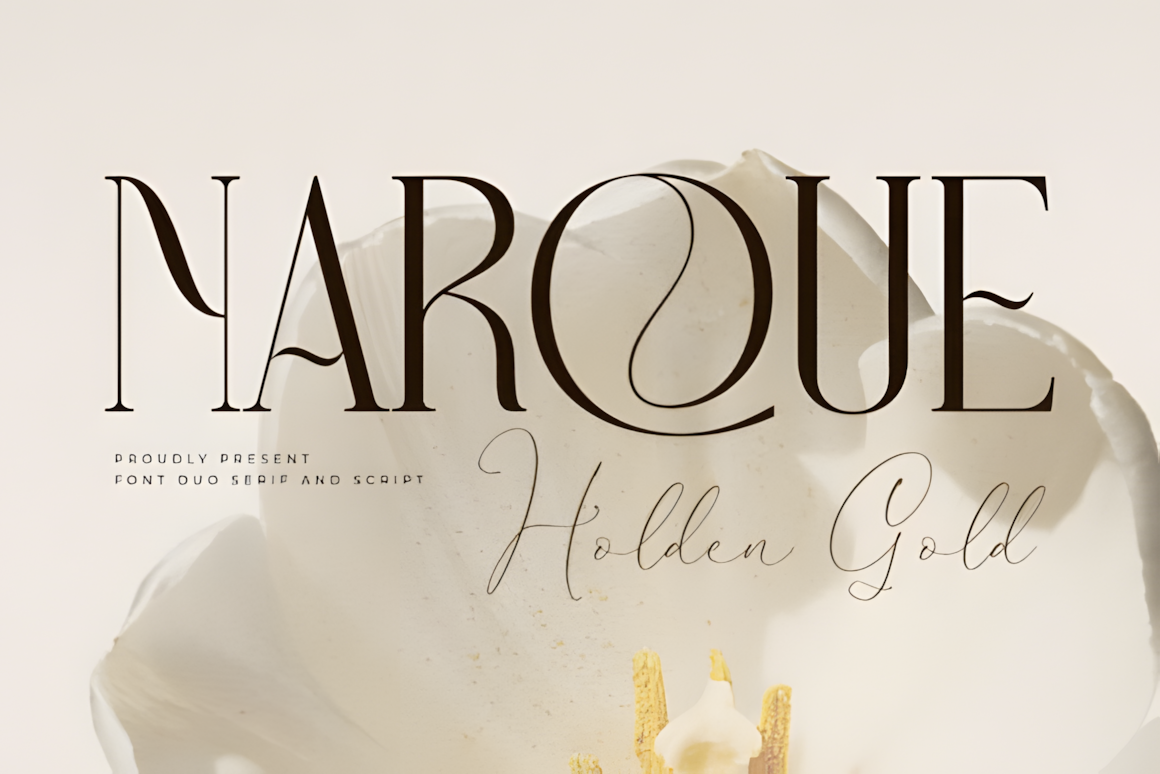
Sifty Font
Sifty is a modern serif typeface with tightly spaced, retro-inspired serifs. With 7 weights and unique ligatures, it works perfectly for headlines, logos, UI design, magazines, and other text-based projects.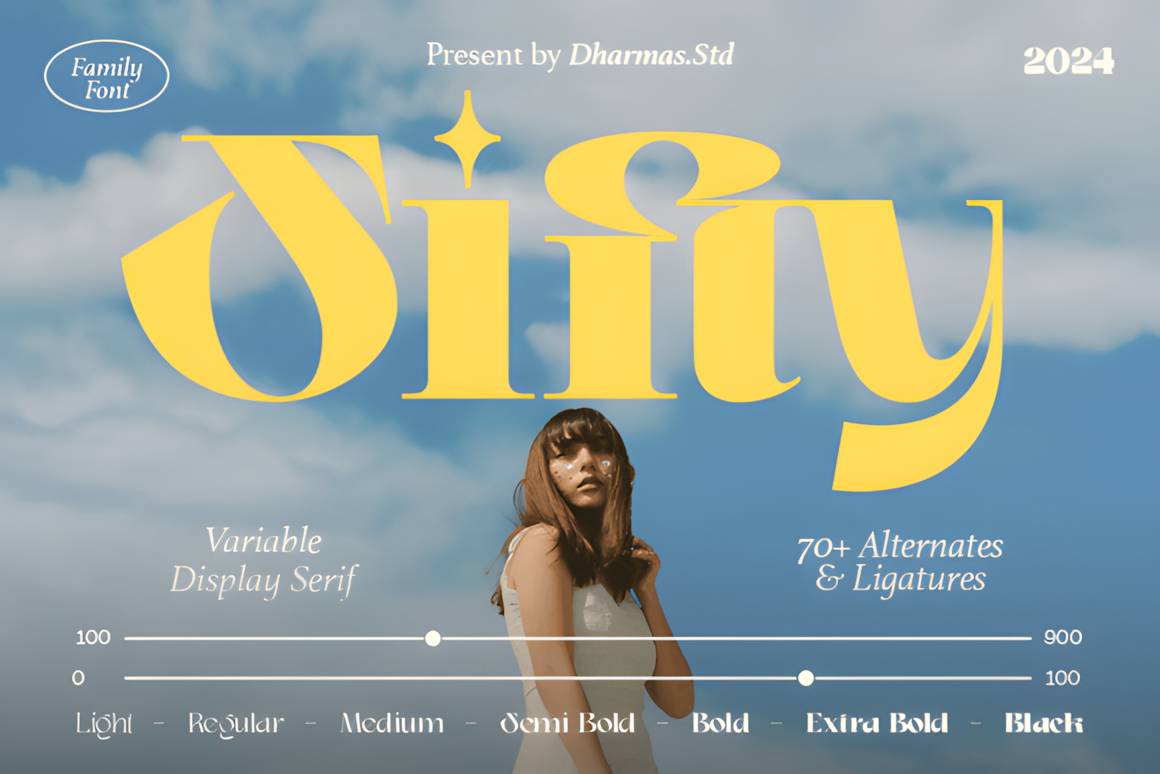
Megivia Font
Megivia is an elegant calligraphy serif typeface blending timeless grace with modern refinement. Featuring multiple styles and carefully crafted curves and alternates, it’s perfect for romantic, polished, and sophisticated designs.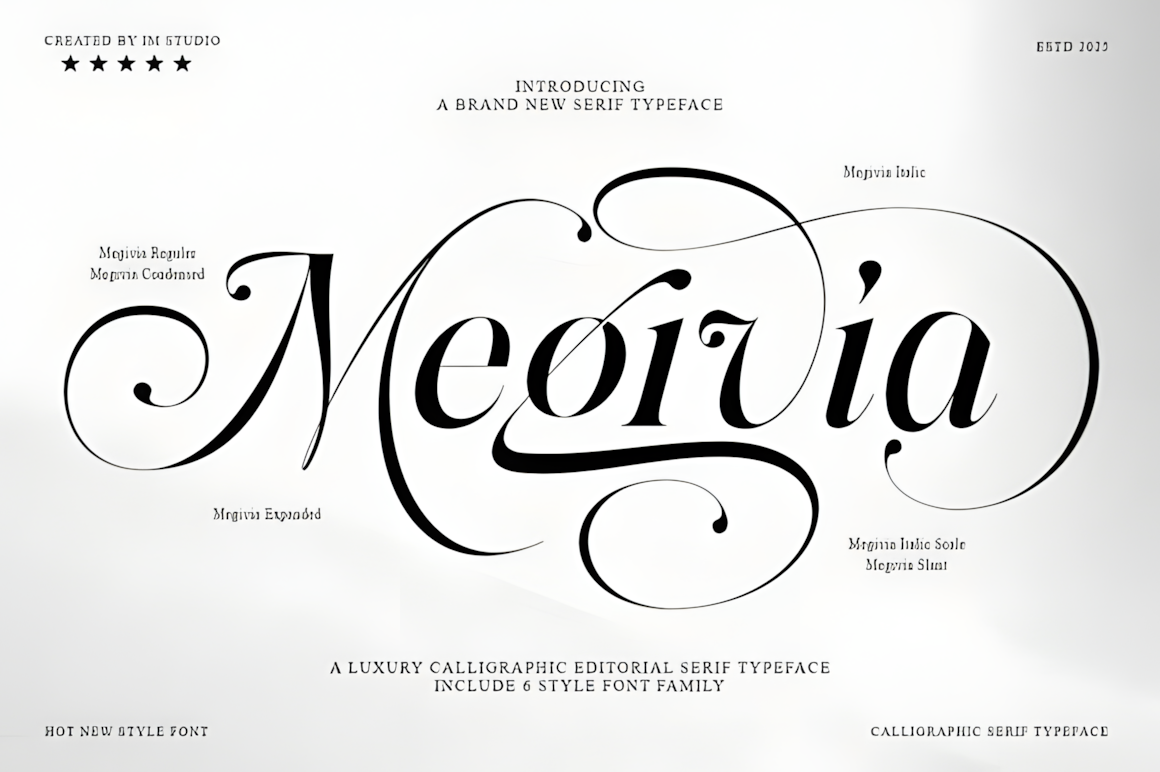
Lorine Font
Lorine is a classic serif display typeface combining timeless elegance with a modern touch. Its graceful proportions, refined serifs, and balanced contrast create a sophisticated yet approachable visual presence.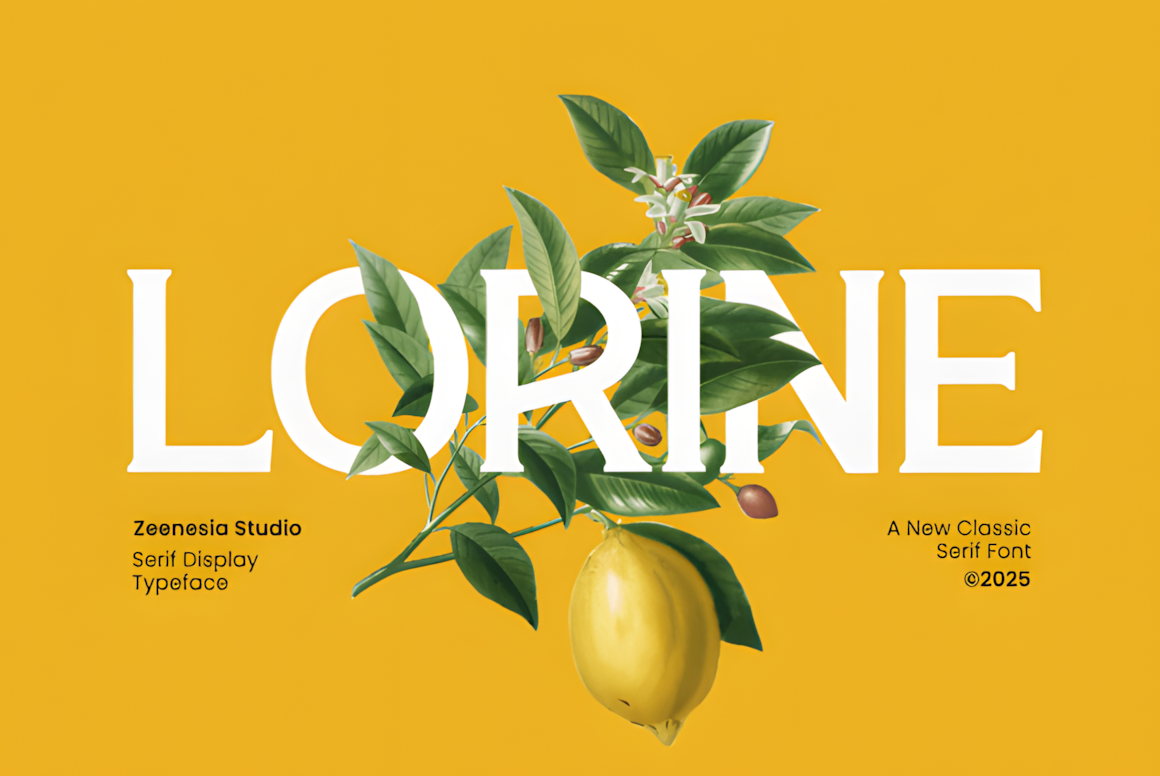
Romla Signature Font
Romla Signature is an elegant font duo combining serif and script styles. PUA encoded for easy access to all glyphs and swashes, it’s perfect for creating stylish, eye-catching designs.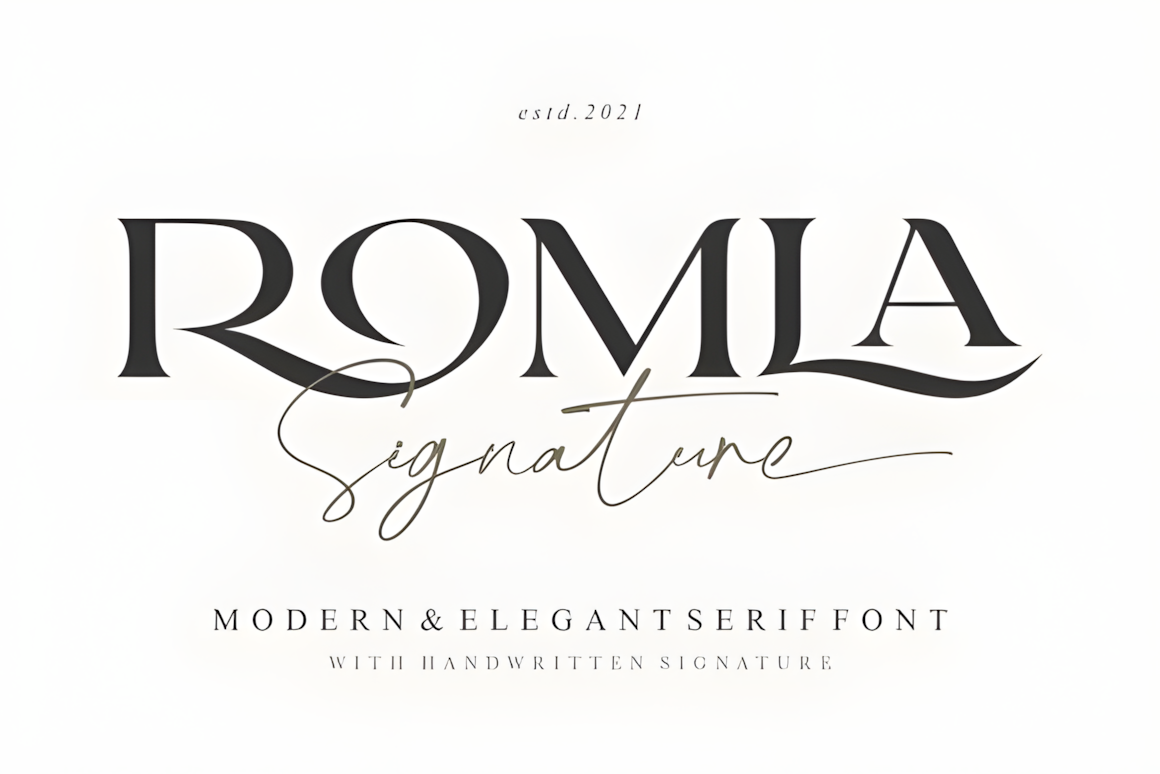
Zamora Font
Zamora is a modern, playful typeface with a mix of regular and stylized letters. Its precise curves and elegant design make it ideal for cartoons, branding, logos, greeting cards, packaging, and fun, eye-catching projects.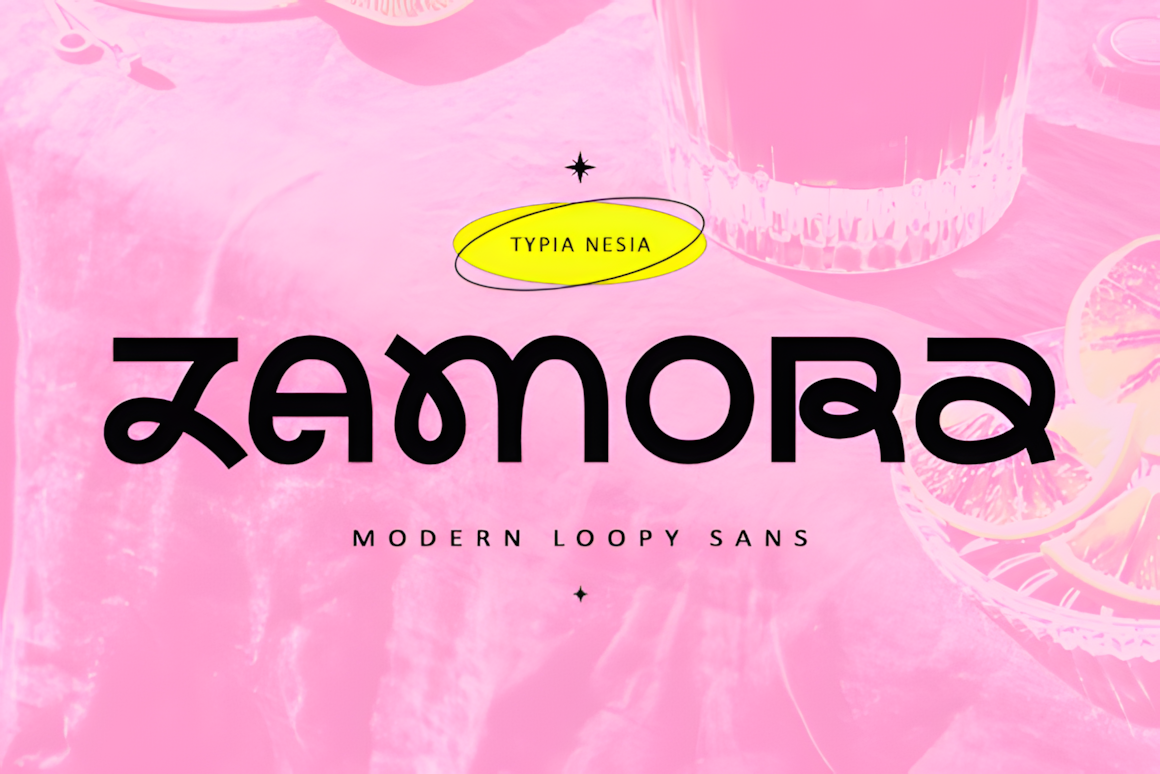
Lush Refinement Duo Font
Lush Refinement is an elegant font duo pairing a high-contrast serif with a flowing, romantic script. Perfect for weddings, luxury branding, and premium editorials, it combines classic sophistication with a bespoke, hand-flourished touch.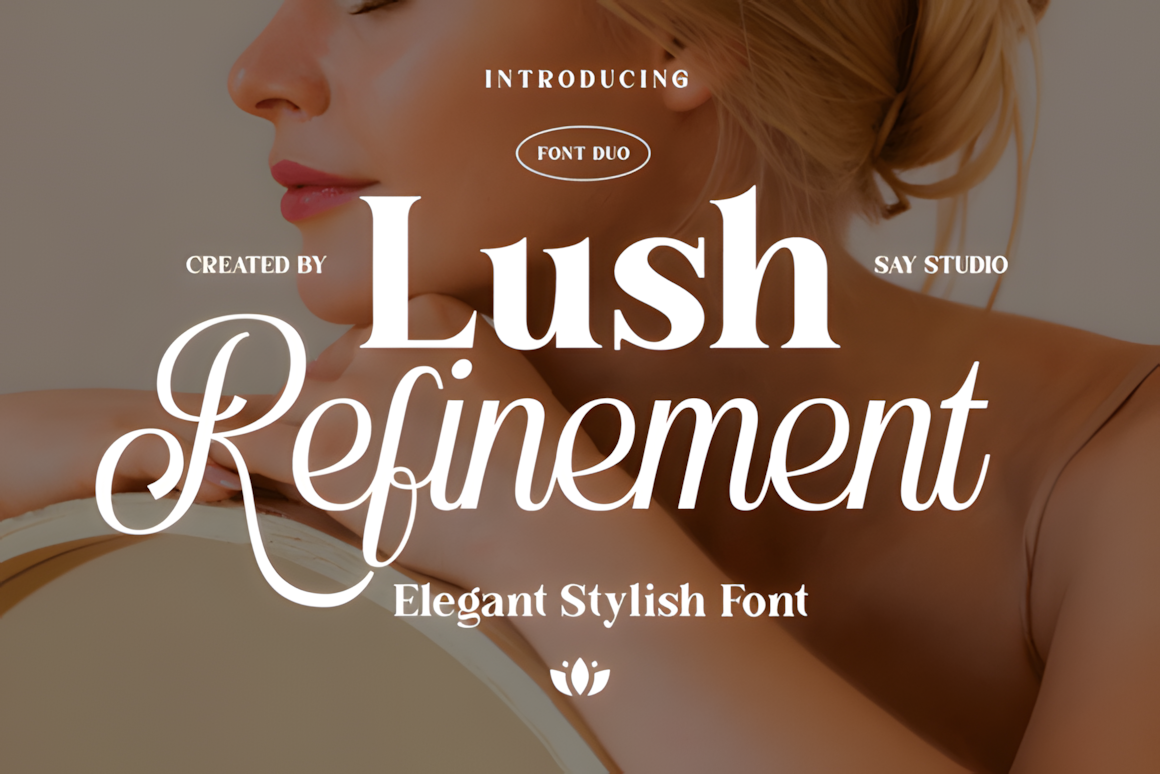
Casey Font
Casey is a refined editorial serif featuring luxury ligatures, alternates, and glyphs. Versatile and elegant, it performs beautifully at both large and small sizes.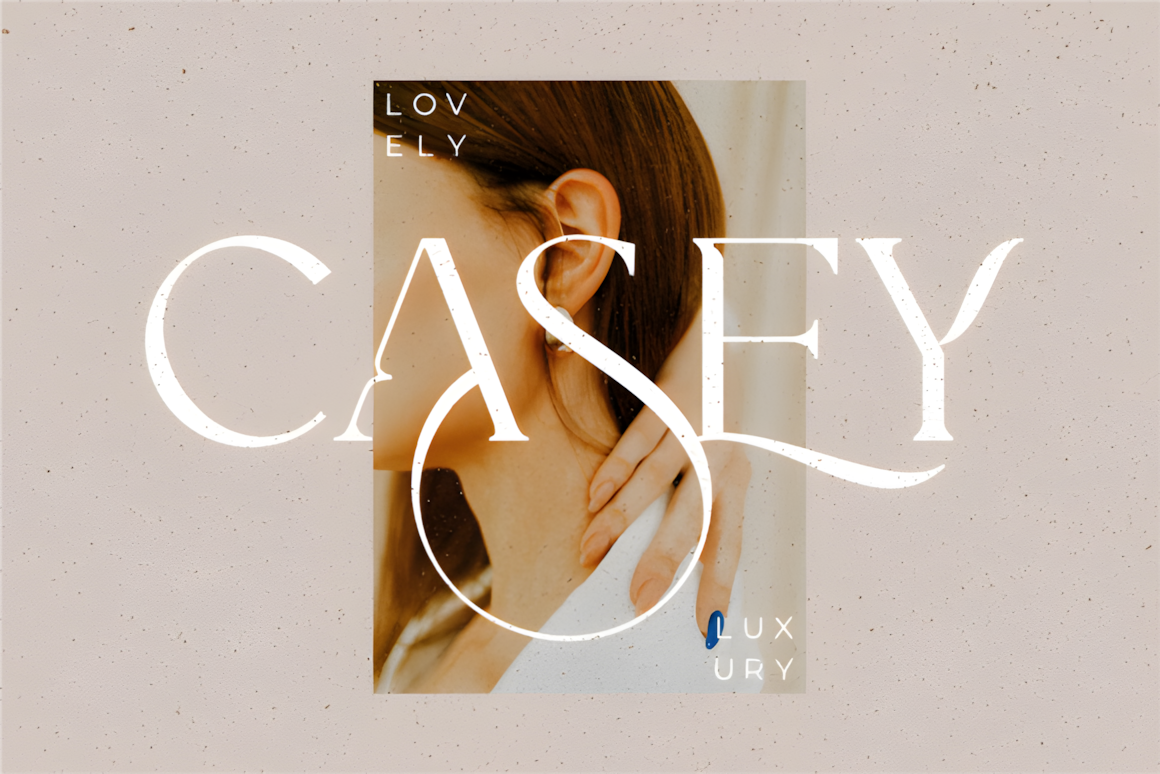
Havana Font
Havana is a retro serif typeface with delicate serifs and finely crafted curves. Its subtle character variations evoke nostalgic charm, making it perfect for vintage-inspired, refined designs.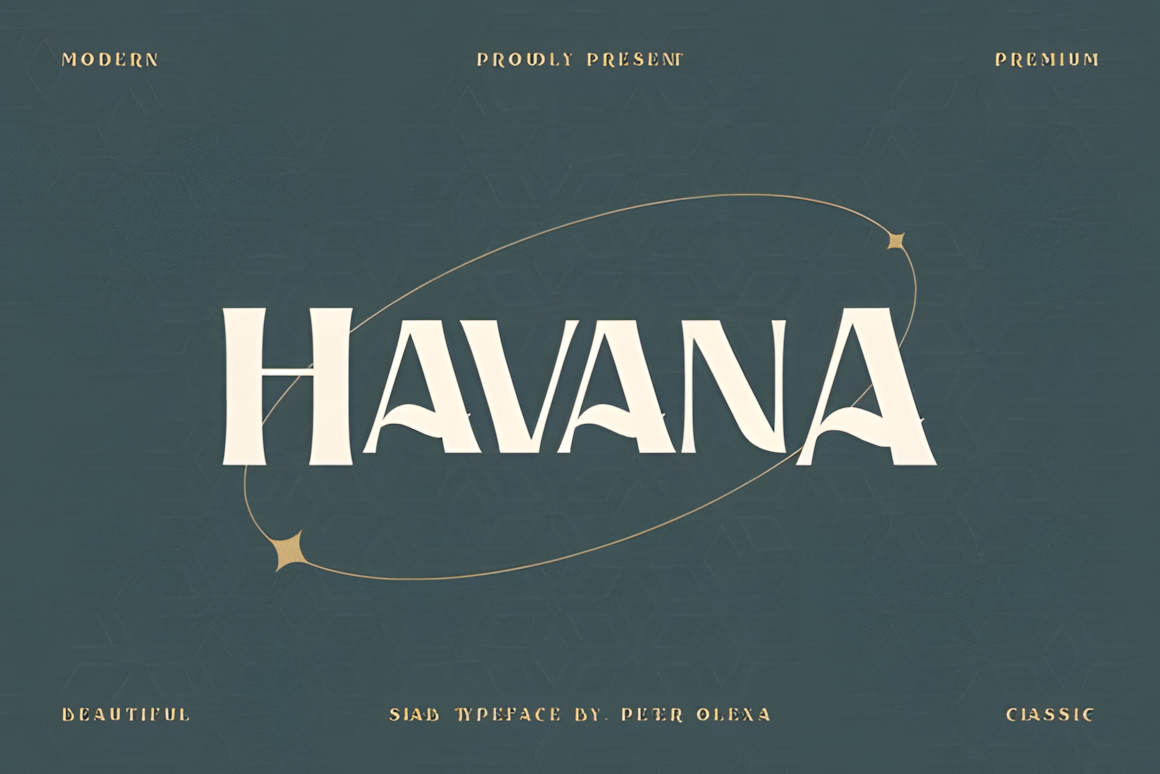
Acollia Font
Acollia is an elegant serif typeface that blends classic charm with modern sophistication. Its intricate details and refined contours create a luxurious yet readable design, ideal for logos, packaging, and editorial projects seeking a polished, contemporary look.
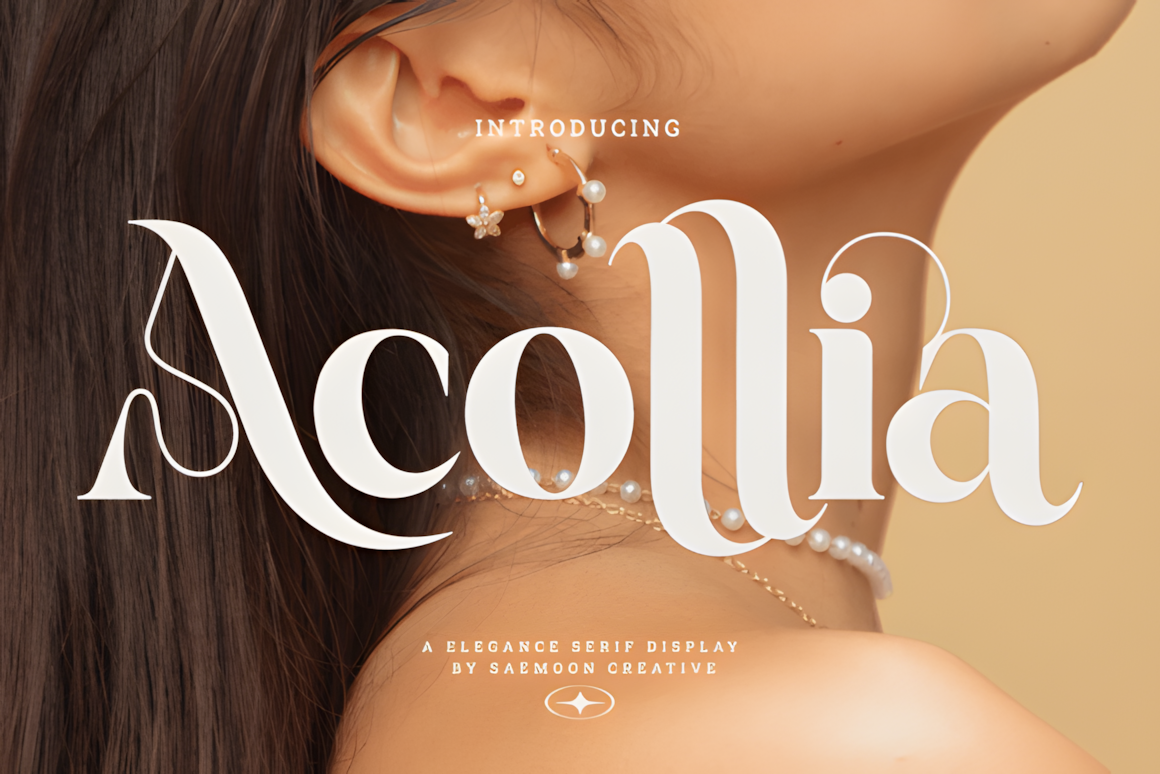
Crafted Elegance & Stylish Typography
These pretty and elegant fonts are perfect for designers who want to bring fashionable, beautiful, and decorative typography into their work. From chic branding to sophisticated editorial layouts, each font enhances your project with grace, style, and refined visual appeal.